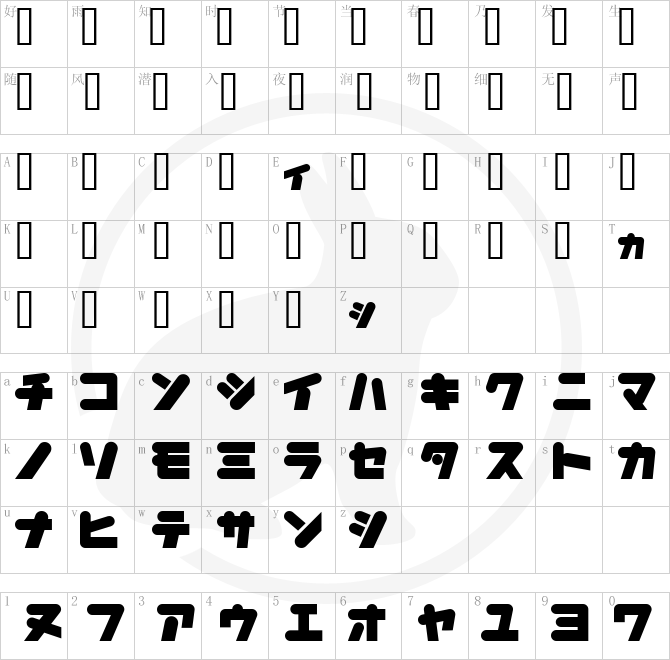
- Font Name:I2HappyChicken
I2HappyChicken.ttf is a very beautiful artistic font, I2HappyChicken.ttf is widely used in the design and printing of various books and pictures,I2HappyChicken.ttf has a strong visual impact,I2HappyChicken.ttf is a commonly used font in newspapers, magazines and books, and is used in posters, e-commerce Poster design, store design, logo design, font design and other fields.I2HappyChicken.